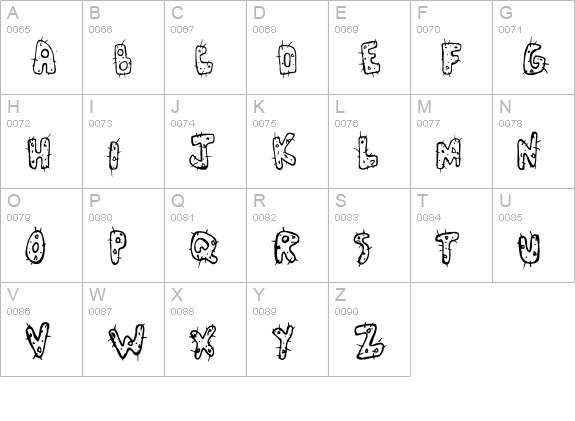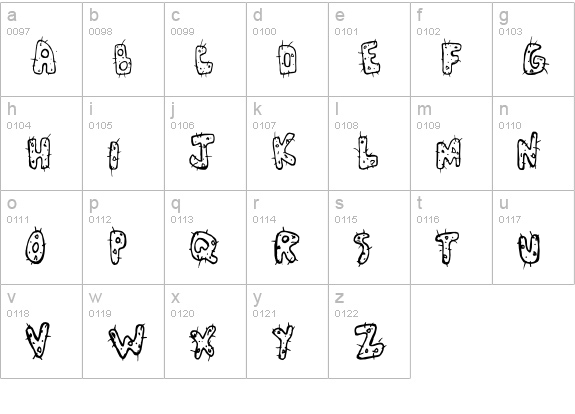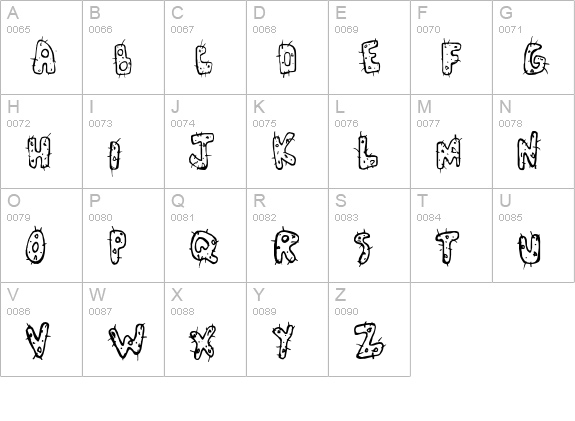
Cactus Love font is a unique and whimsical typeface that captures the essence of desert beauty and charm. Its intricate design features intricate cactus motifs intertwined with elegant letterforms, creating a visually stunning and captivating font. This font is perfect for adding a touch of nature-inspired elegance to your creative projects. Whether you're designing invitations, branding materials, or crafting a logo, Cactus Love font will effortlessly elevate your designs with its distinctive style. One of the best things about Cactus Love font is that it is freely available to download at FontsMarket.com. This means that you can easily access and use this font without any cost or restrictions. It's a fantastic opportunity to enhance your design toolkit with a font that is both visually striking and versatile. With its bold and eye-catching presence, Cactus Love font is sure to make a lasting impression on your audience. It brings a fresh and modern twist to any design, making it ideal for those who seek a font that stands out from the crowd. So, if you're looking for a font that combines the allure of the desert with a touch of elegance, look no further than Cactus Love font. Download it for free at FontsMarket.com and let your creativity bloom with this delightful and captivating typeface.